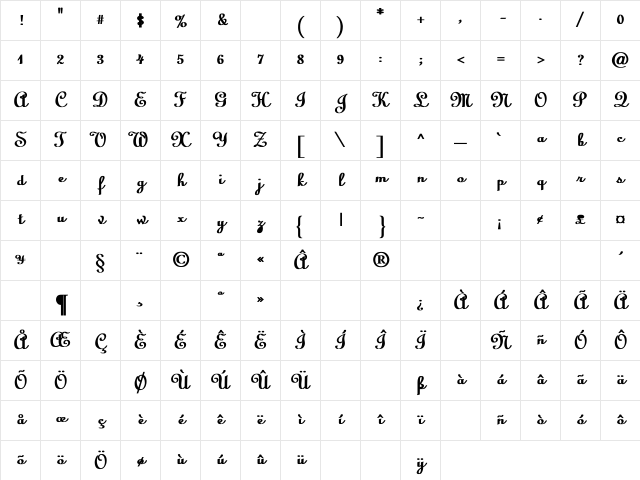
Linoscript Bold Bold
Linoscript Bold Bold Font Preview
Design Context for Linoscript Bold
Linoscript Bold flows with the natural rhythm of handwritten lettering, making it ideal for designs that call for warmth and personal expression. Its bold stroke weight gives it real presence on the page.
Font Pairing: Combine Linoscript Bold with a simple geometric sans for maximum contrast - the tension between flowing curves and clean structure is a classic typographic pairing.
Pro Tip: Use Linoscript Bold for short runs of text - names, titles, or taglines. Extended body copy in script faces tires the eye quickly.